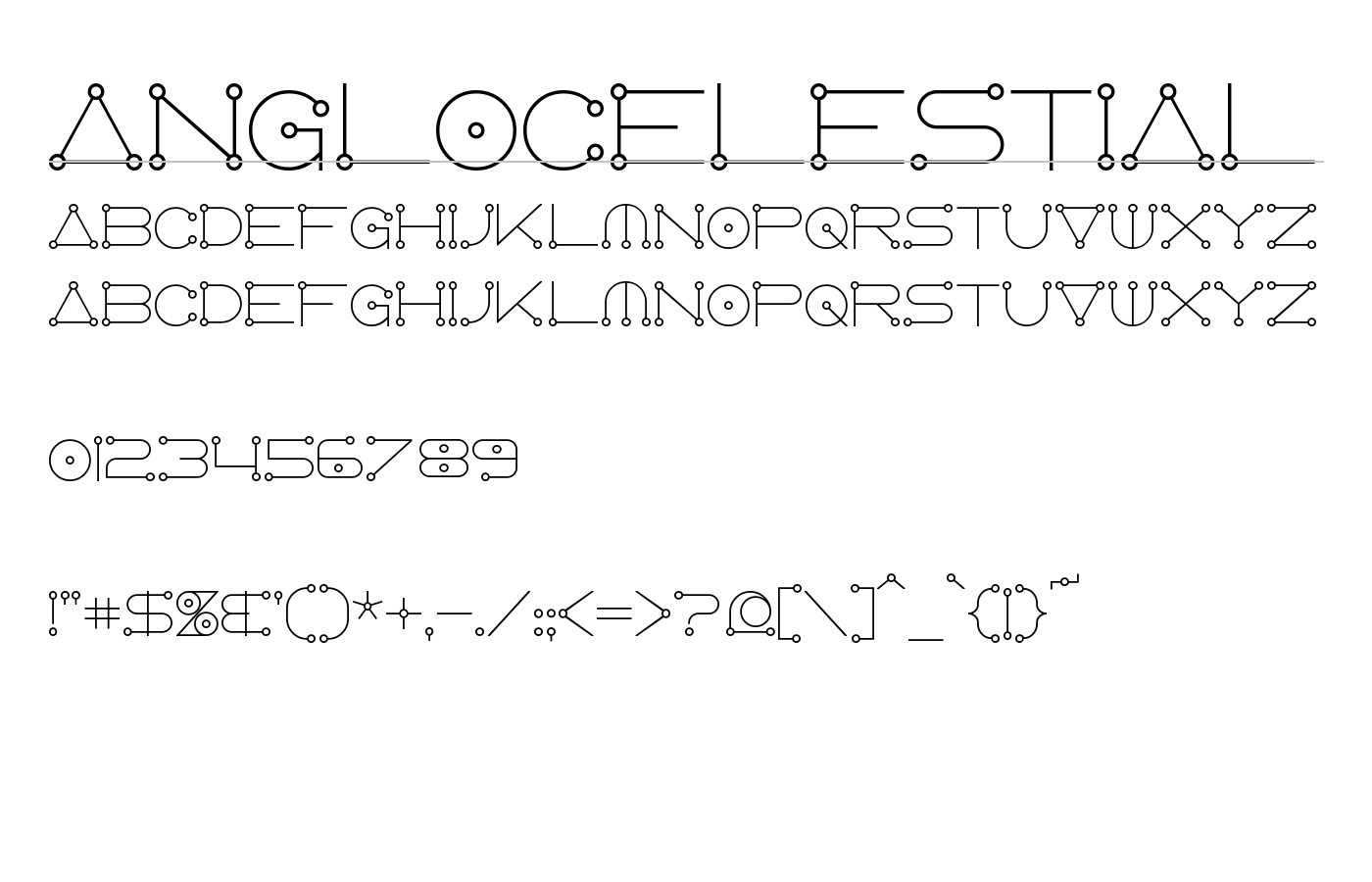
AngloCelestial is a modern, futuristic sans serif font with a geometric, tech-inspired design. Its thin lines and circular nodes give it a delicate, almost celestial or circuit-like appearance, making it ideal for science, technology, and digital-themed projects. This font works best for headlines, logos, and creative branding where a unique, innovative style is desired.
AngloCelestial Font
About AngloCelestial Font
| Font family | AngloCelestial Font |
| Designer | Neale Davidson |